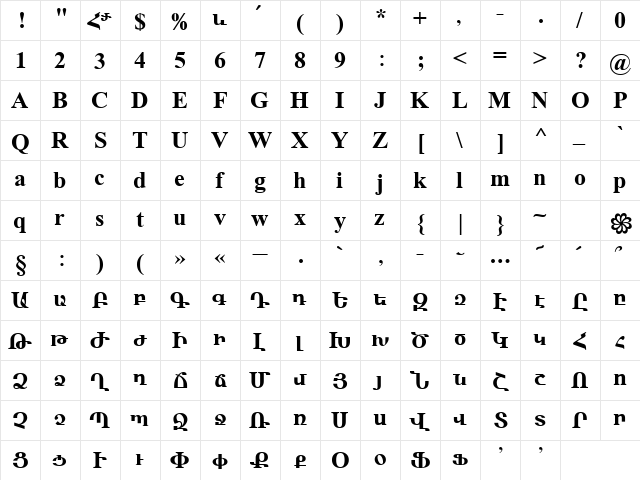
ArTarumianMatenagir Bold Font Preview
ArTarumianMatenagir Bold
ArTarumianMatenagir Bold Font Details
Design Context for ArTarumianMatenagir Typeface
ArTarumianMatenagir offers clean, dependable letterforms without strong stylistic allegiance, making it a practical choice for designers who need flexibility. The heavy weight commands attention and anchors typographic hierarchies.